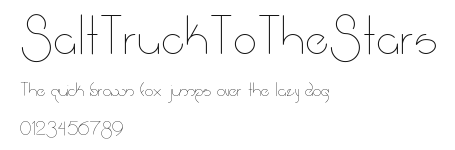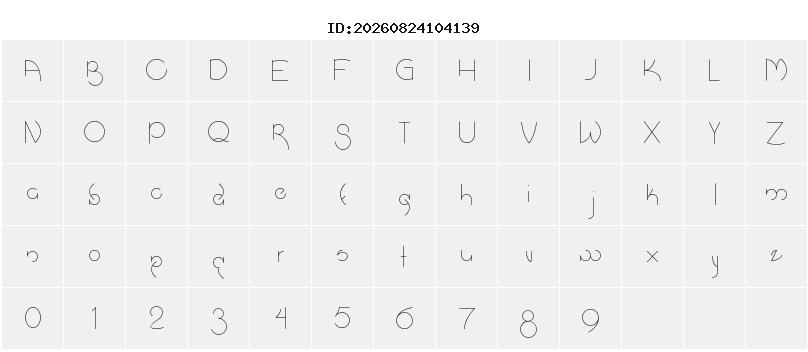
SaltTruckToTheStars Preview
About SaltTruckToTheStars.ttf
SaltTruckToTheStars.ttf is a modern, elegant sans-serif font designed for ultimate readability and visual harmony. Perfect for branding, headlines, web design, and print materials.